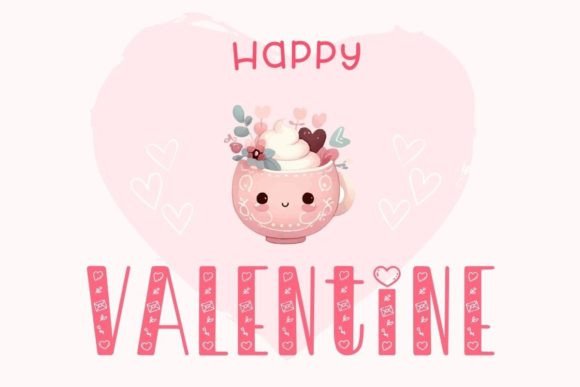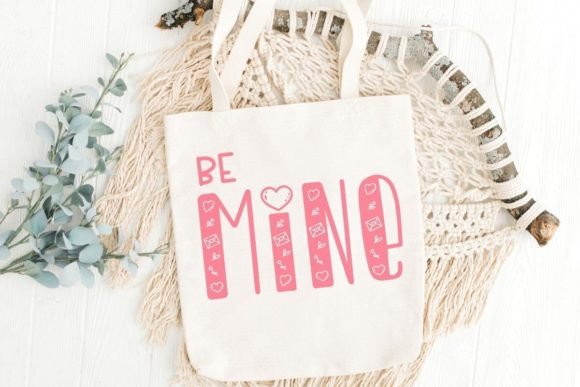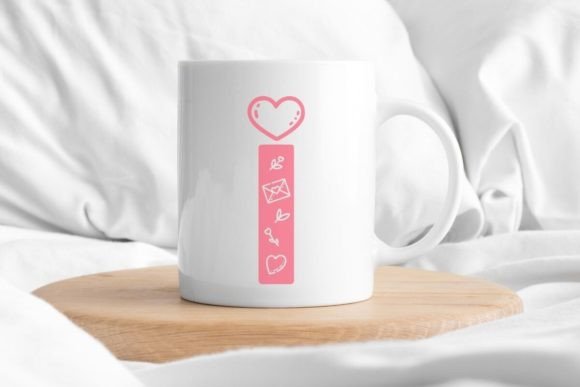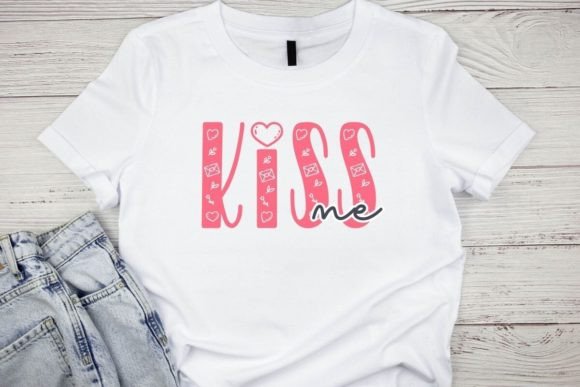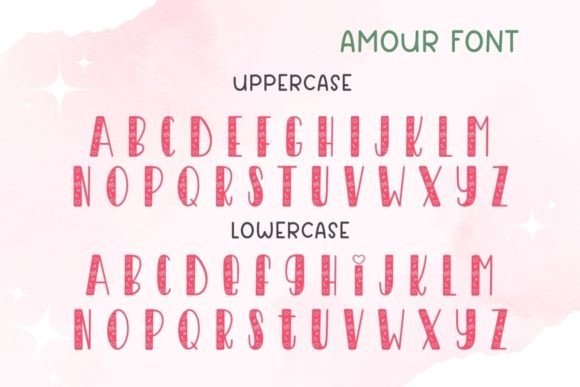
Introducing Amour Font: The Cutest Decorative Font for Your Design Needs
Are you tired of using the same old fonts for your designs? Look no further! Amour Font is here to add a touch of cuteness and quirkiness to your creations. This adorable decorative font combines Valentine’s elements silhouettes with handwritten fonts, making it perfect for a wide range of design projects.
What Makes Amour Font Special?
Amour Font is a unique and charming font that stands out from the rest. Its quirky style is achieved by combining cute Valentine’s elements silhouettes with handwritten fonts, creating a distinctive and eye-catching look. This font is perfect for designers and crafters who want to add a personal touch to their work.
Amour Font is versatile and can be used for a wide variety of design projects, including:
- Banners: Create eye-catching banners for events, promotions, or sales with Amour Font.
- Content: Add a touch of cuteness to your blog posts, articles, or social media content with this adorable font.
- Mugs: Design personalized mugs for gifts or promotional items with Amour Font.
- Cards: Create custom greeting cards for special occasions, such as Valentine’s Day, birthdays, or anniversaries.
- Shirts: Design trendy and unique t-shirts, hoodies, or tote bags with Amour Font.
- Stationery: Add a personal touch to your stationery, such as notebooks, journals, or planners.
- Social Media Posts: Make your social media posts stand out with Amour Font.
Why Choose Amour Font?
Here are some reasons why Amour Font is a great choice for designers and crafters:
- Unique and Quirky Style: Amour Font has a distinctive and eye-catching style that will set your designs apart.
- Easy to Read: Despite its decorative nature, Amour Font is easy to read and understand.
- Versatile: Amour Font can be used for a wide range of design projects, from digital to print.
- Cute and Playful: Amour Font adds a touch of cuteness and playfulness to your designs, making them more engaging and appealing.
Tips for Using Amour Font
Here are some tips for using Amour Font effectively:
- Pair with Other Fonts: Pair Amour Font with other fonts to create a unique and interesting contrast.
- Use for Headings and Titles: Use Amour Font for headings and titles to add a touch of cuteness and emphasis.
- Keep it Simple: Don’t overdo it – keep your design simple and clean to let Amour Font shine.
Amour Font is a charming and versatile decorative font that is perfect for designers and crafters. Its quirky style and cute Valentine’s elements silhouettes make it a great choice for a wide range of design projects. With its ease of use and versatility, Amour Font is sure to become a favorite in your design arsenal. So why wait? Give Amour Font a try today and add a touch of cuteness to your designs!